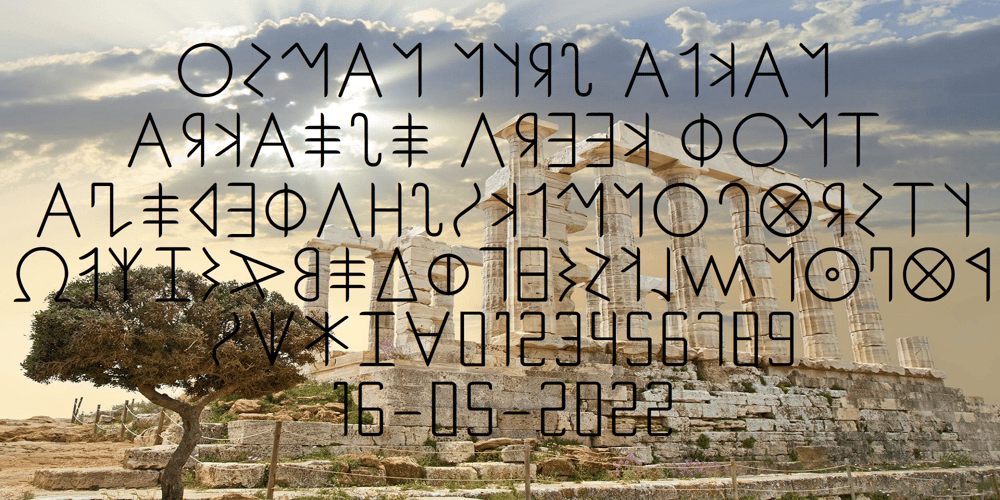
Ongunkan Arkaic Greek Font Family was designed by Osman Nuri ALKAN and published by Runic World Tamgacı. Ongunkan Arkaic Greek contains 1 styles and family package options. Many local variants of the Greek alphabet were employed in ancient Greece during the archaic and early classical periods, until around 400 BC, when they were replaced by the classical 24-letter alphabet that is the standard today. All forms of the Greek alphabet were originally based on the shared inventory of the 22 symbols of the Phoenician alphabet, with the exception of the letter Samekh, whose Greek counterpart Xi (Ξ) was used only in a sub-group of Greek alphabets, and with the common addition of Upsilon (Υ) for the vowel /u, ū/.[1][2] The local, so-called epichoric, alphabets differed in many ways: in the use of the consonant symbols Χ, Φ and Ψ; in the use of the innovative long vowel letters (Ω and Η), in the absence or presence of Η in its original consonant function (/h/); in the use or non-use of certain archaic letters (Ϝ = /w/, Ϙ = /k/, Ϻ = /s/); and in many details of the individual shapes of each letter. The system now familiar as the standard 24-letter Greek alphabet was originally the regional variant of the Ionian cities in Anatolia. It was officially adopted in Athens in 403 BC and in most of the rest of the Greek world by the middle of the 4th century BC.